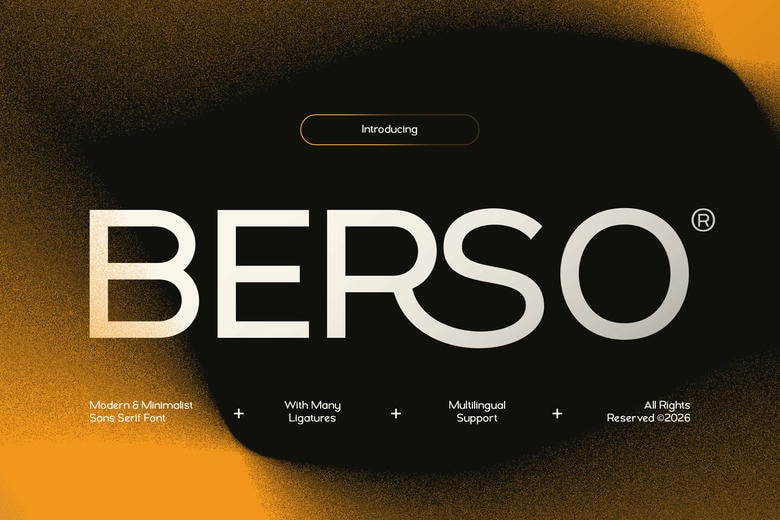
Berso Font
Berso is a modern minimalist sans font made for designers who value simplicity, precision, and timeless style. It has clean letter shapes, balanced proportions, and a carefully built geometric look.
Berso offers a sleek, sophisticated look that feels modern and works well in many settings. Its simple elegance lets your content stand out and helps create a polished, professional style.
Berso Sans Serif Font